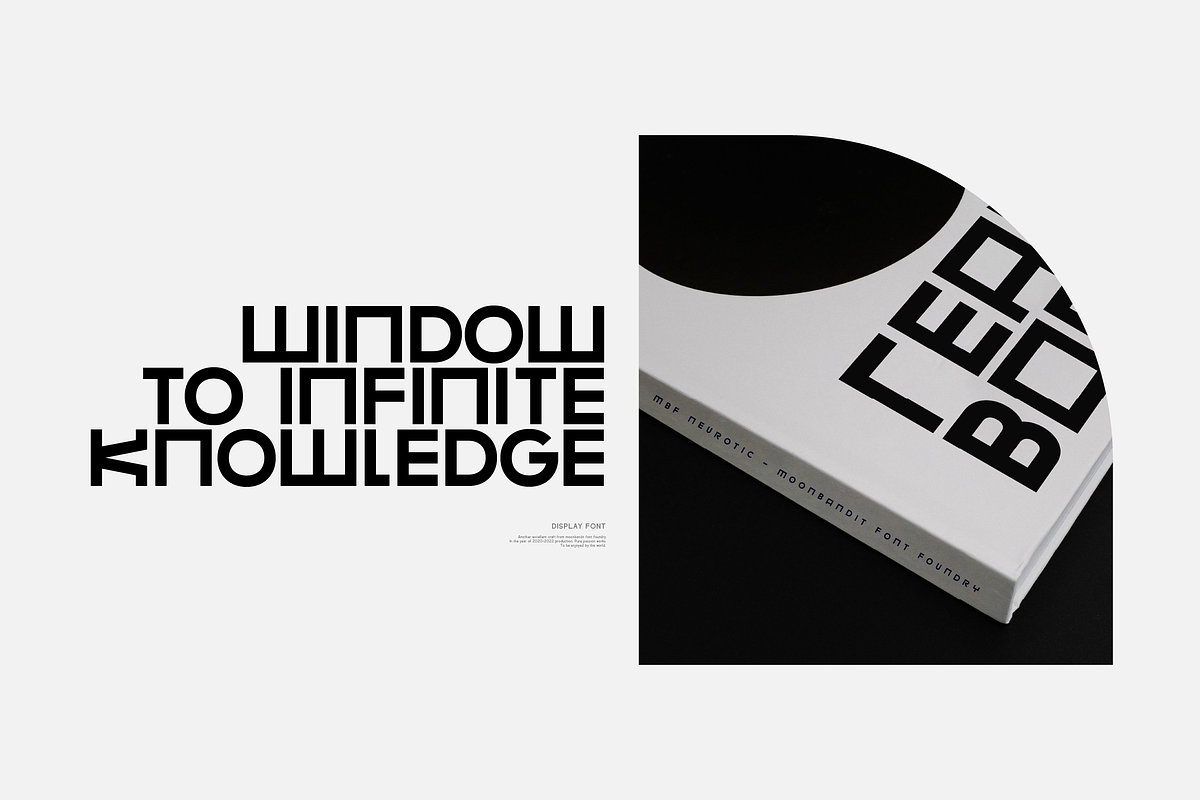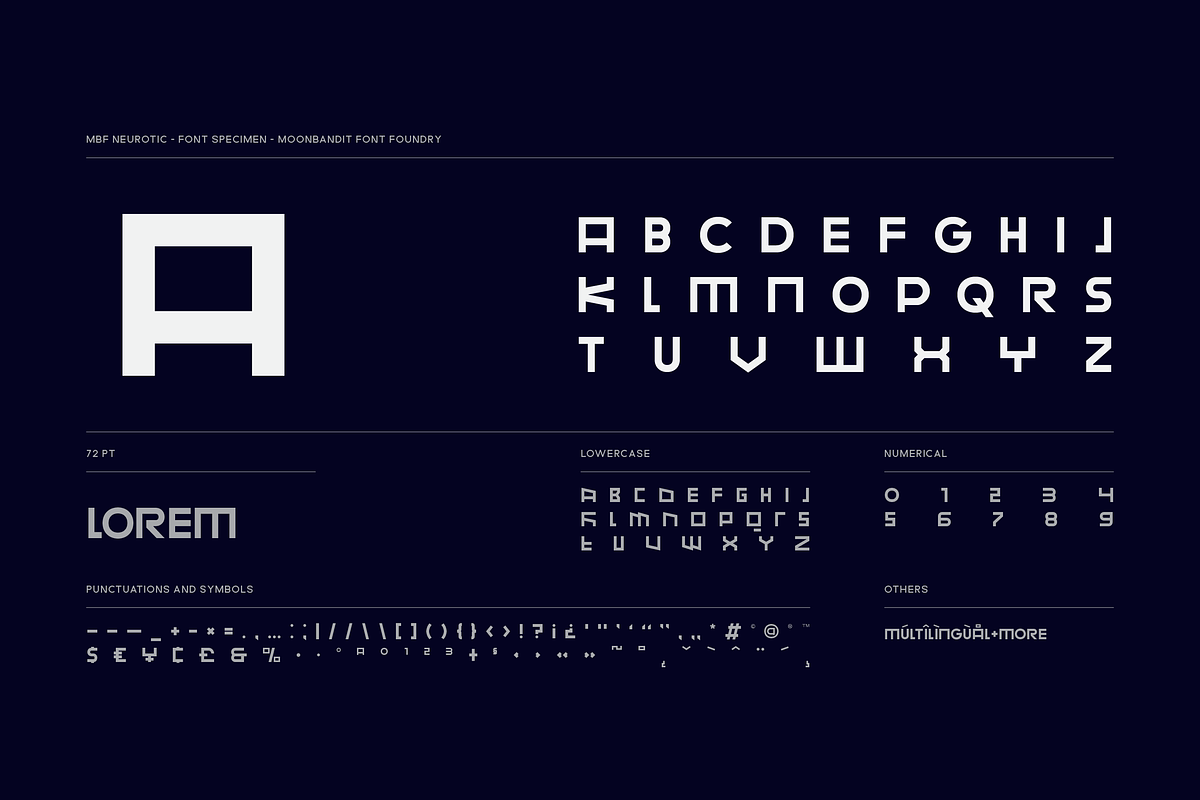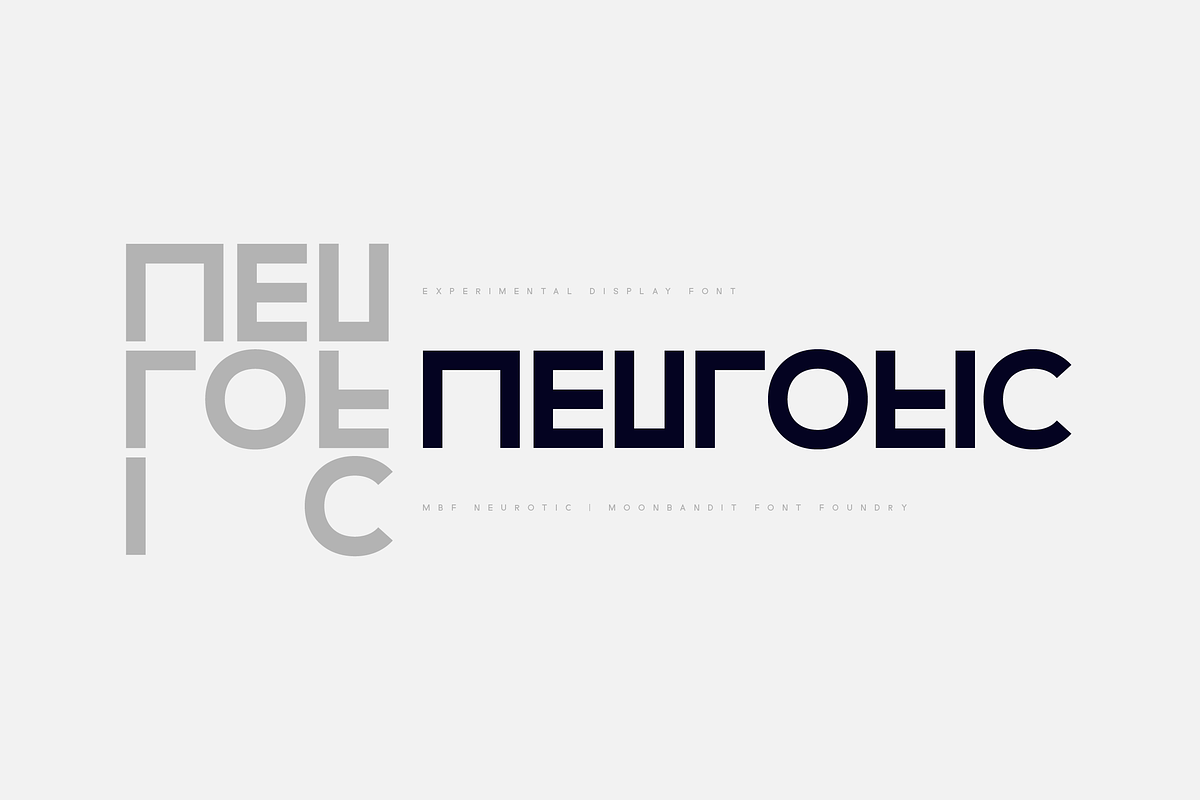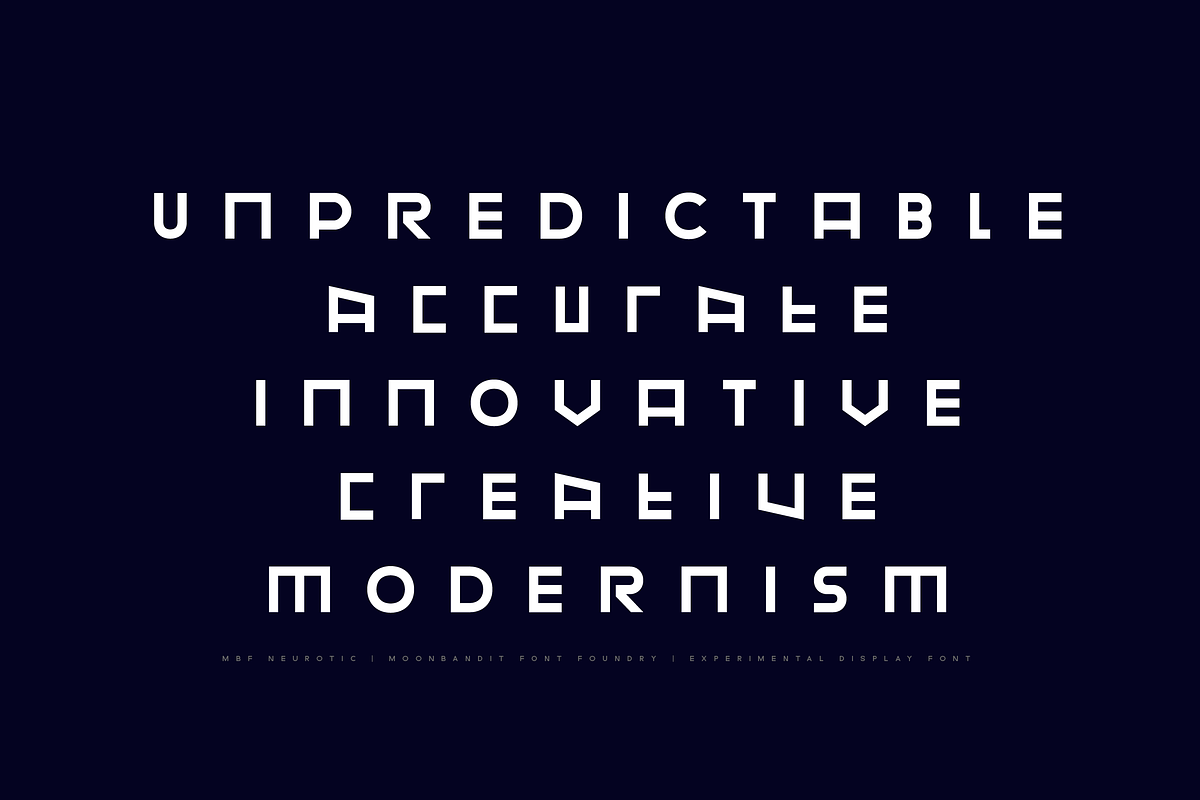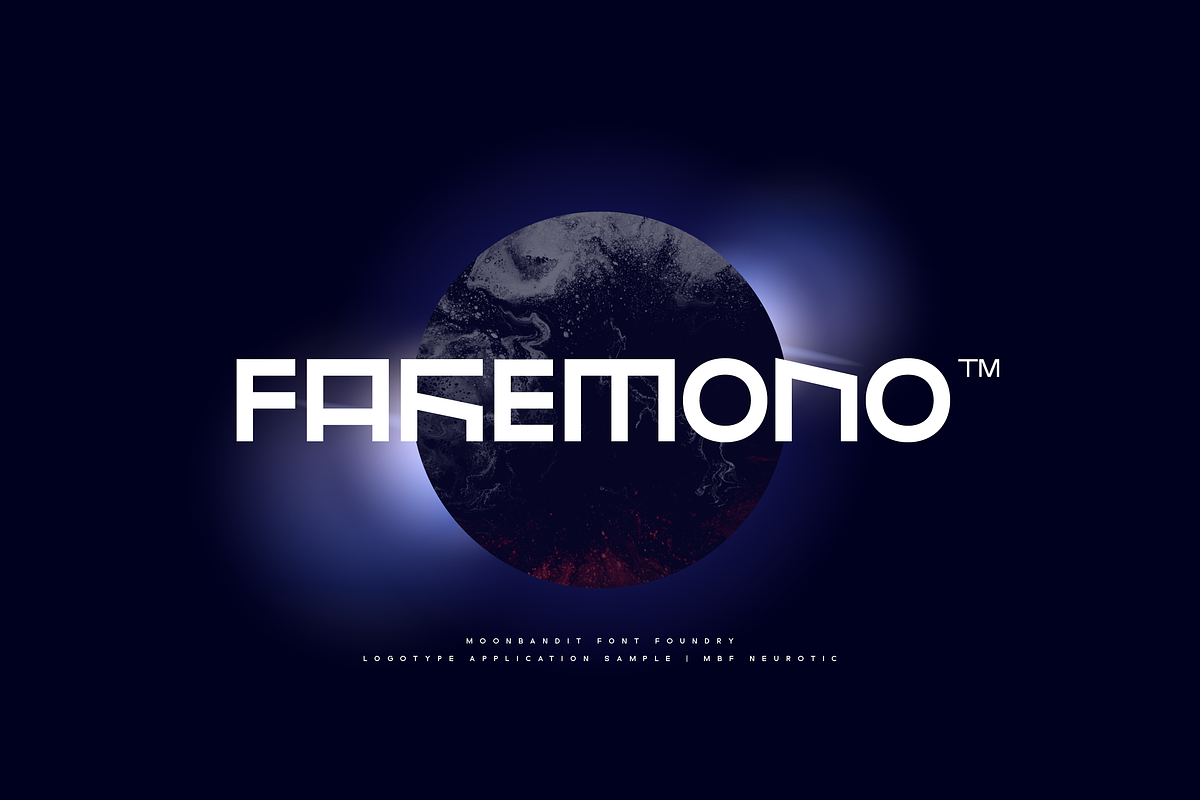
MBF Neurotic - Experimental square
Neurotic is a geometric modern minimalist square sans serif display font. An experimental combination between angled and straight lines makes this a unique typeface design. Easily access the styles with uppercase and lowercase. Perfect usage includes logo, poster, display, headline, t-shirt design and many more.